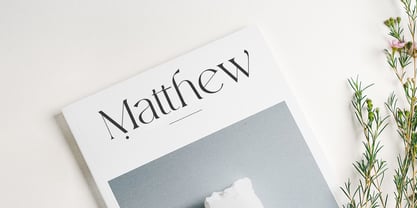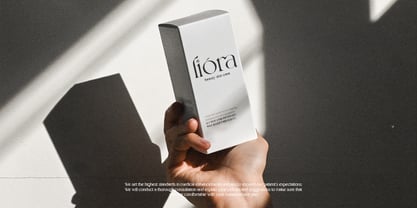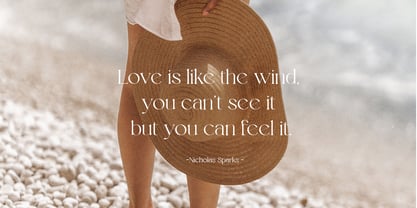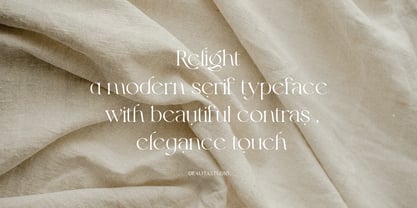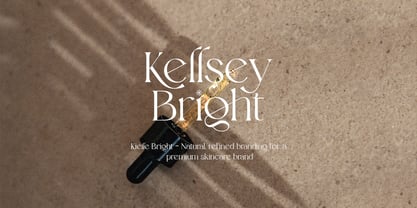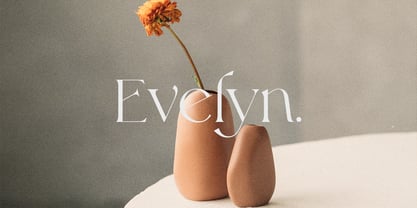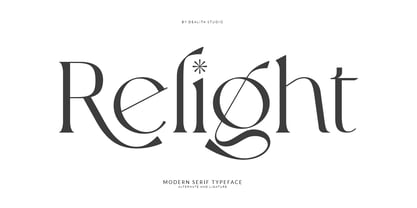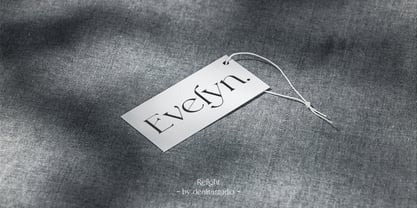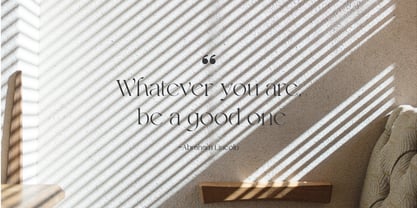
Relight
by Dealita Studio
The Relight Font Family was designed by Januar Rahim and published by Dealita Studio. Relight contains 1 styles. More about this family
Showcasing a masterful interplay of thick and thin strokes along its axis of contrast, Relight features beautifully sculpted bracketed serifs. The delicate terminal flourishes highlight a profound dedication to typographic excellence. Engineered for Editorial Standards and Professional Typesetting, this typeface boasts typographic excellence and flawless kerning. It is the authoritative choice for Professional Logotypes, Editorial Spreads, and high-end Book Covers. Boasting an extensive roster of 287 glyphs and 16 stylized ligatures, this typeface is engineered for global resonance with comprehensive 67-language support. Featuring manual curve refinement for flawless letterforms, ensuring your brand remains authoritative and technically sound.
Designers: Januar Rahim
Foundry: Dealita Studio